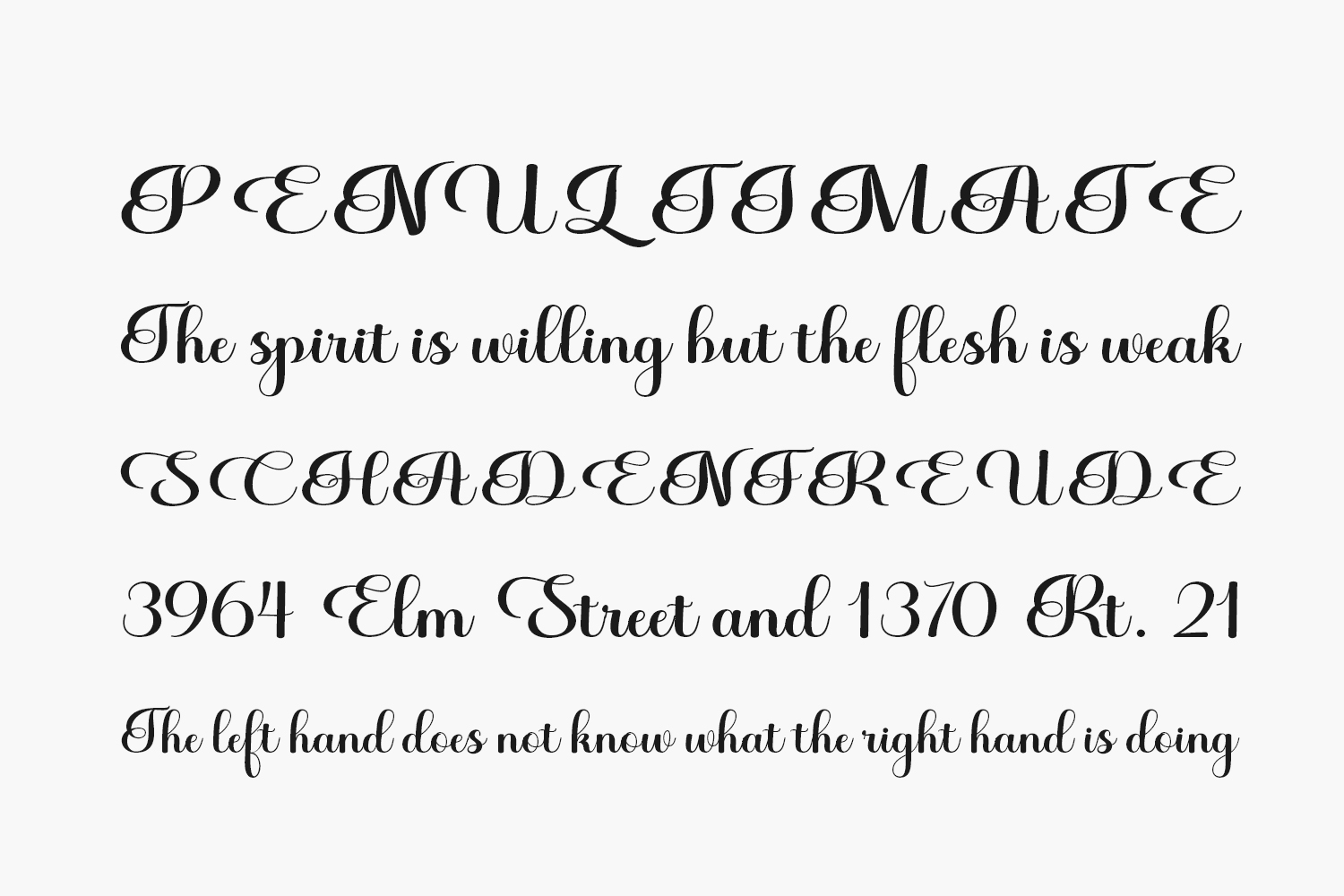
Introducing Greating Free Font, an exquisite and intricately crafted script font. Infuse your love letters, wedding invitations, or cherished design concepts with this enchanting and affectionate typeface, and prepare to be captivated by the remarkable results it brings forth. Greating Free Font is free for personal use only. Please purchase the full version for commercial use.
Designed by Romi Rahmadi